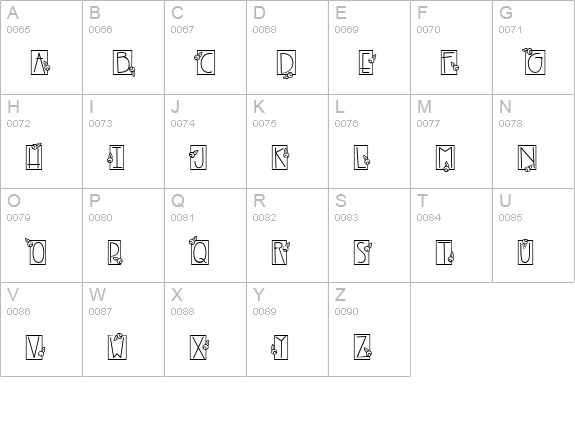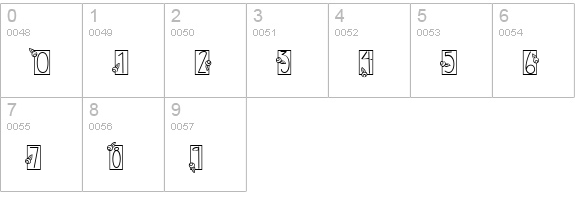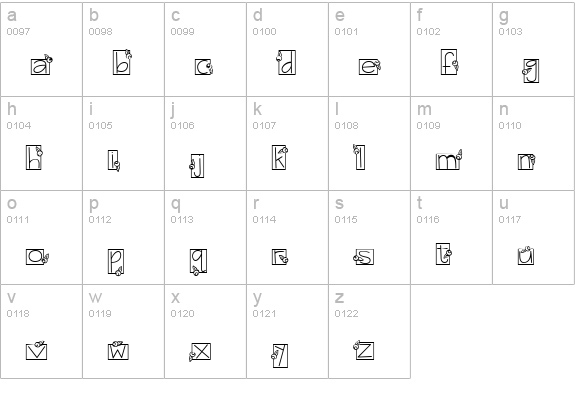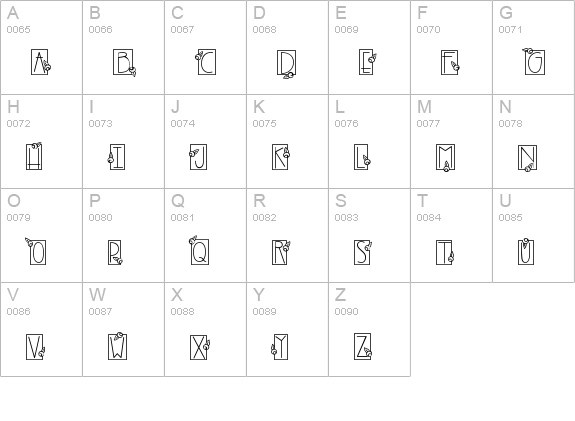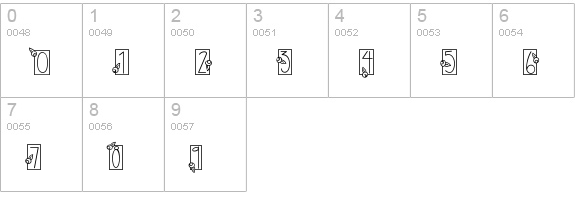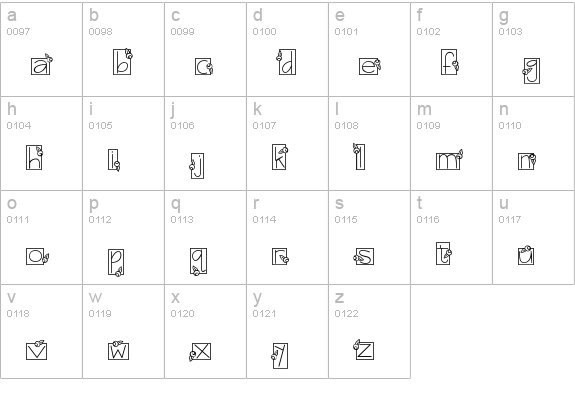
CK Posies Font Details
CK Posies font is a charming and whimsical typeface that brings a touch of elegance to any design. With its delicate floral elements and graceful curves, this font is perfect for adding a feminine and romantic feel to invitations, greeting cards, and other creative projects. The soft and flowing lines of CK Posies evoke a sense of beauty and grace, making it an ideal choice for wedding stationery, branding materials, and more. Whether you're looking to add a touch of sophistication to your designs or simply want to express your creativity in a unique way, CK Posies is sure to impress. Best of all, CK Posies font is completely free to download at FontsMarket.com, making it accessible to anyone looking to enhance their designs with a touch of floral charm. Download CK Posies today and bring a touch of beauty to your next project!